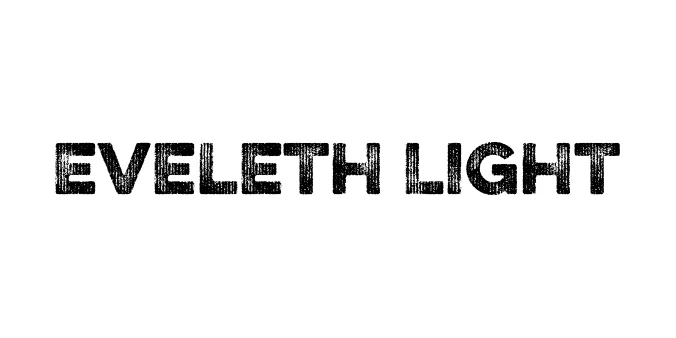
Eveleth Light
Designed by Ryan Martinson (Yellow Design Studio)
| Category | Distressed Sans-Serif / Letterpress |
Eveleth Light is a sophisticated member of the high-resolution letterpress family designed by Ryan Martinson. This font captures the authentic charm of vintage printing, offering a delicate yet rugged aesthetic that is perfect for projects requiring a touch of hand-crafted elegance. Unlike heavier weights in the family, the Light version provides a cleaner, more refined look while maintaining the distinctive distressed texture and weathered imperfections that characterize the series.
Released through Yellow Design Studio, Eveleth is celebrated for its immense versatility and exceptional level of detail. It is frequently utilized in high-end branding, premium packaging, and digital designs where a retro, textured feel is desired without sacrificing legibility. The font family includes various sub-weights and shadow options, allowing designers to layer and customize their typography for a truly unique and artisanal appearance that stands out in modern media.
Eveleth Light Best Uses
Ideal for vintage-inspired logos and artisanal brand identities.
Works perfectly for organic food labels or high-end craft product packaging.
Great for eye-catching headers with a weathered, textured feel.
Excellent for magazine headings that require a touch of character and history.